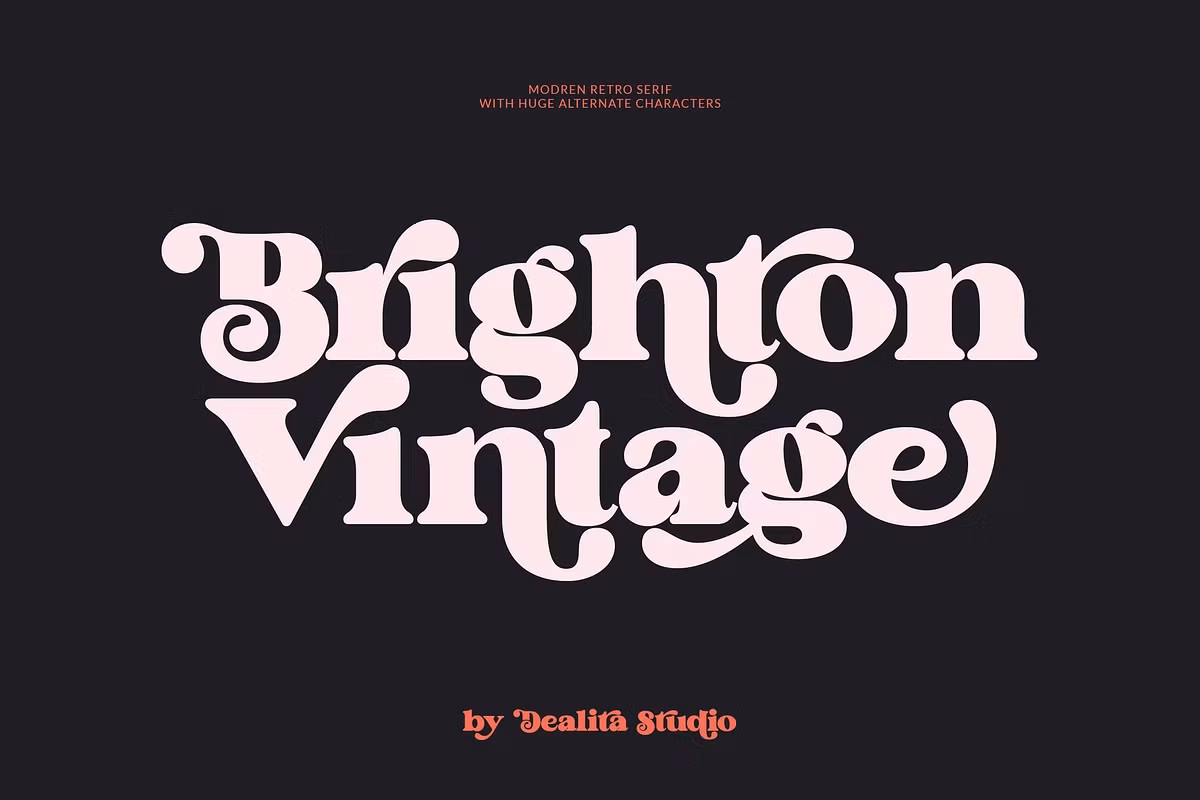
Brighton Vintage - Modern Serif Font Free Download
Brighton Vintage – Modern Serif Font Free Download blends nostalgic charm with a contemporary edge, making it the perfect choice for designers seeking a refined yet distinctive typeface. With its elegant serifs and stylish letterforms, Brighton Vintage is ideal for branding, magazine covers, wedding invitations, and upscale packaging.
This font brings a sense of timeless sophistication to any project, effortlessly balancing vintage aesthetics with modern readability. Its high contrast strokes and graceful curves make a strong visual impact, whether used in headlines or decorative text.